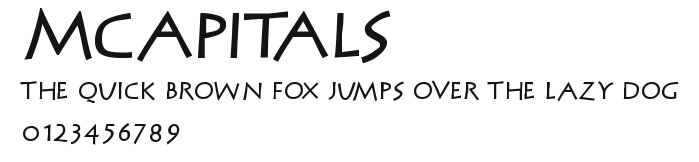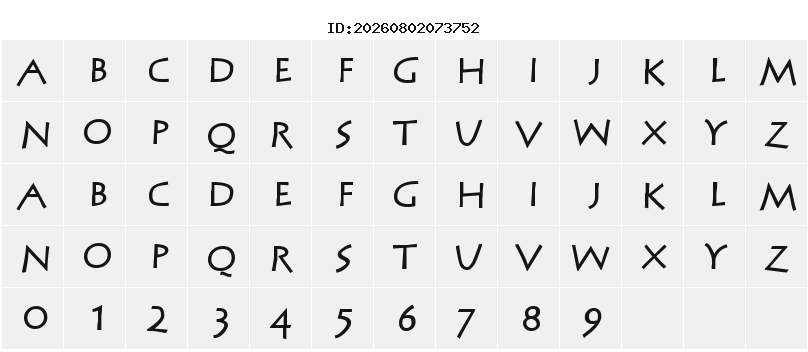
About MCapitals.ttf
MCapitals.ttf is a modern, elegant sans-serif font designed for ultimate readability and visual harmony. Perfect for branding, headlines, web design, and print materials.